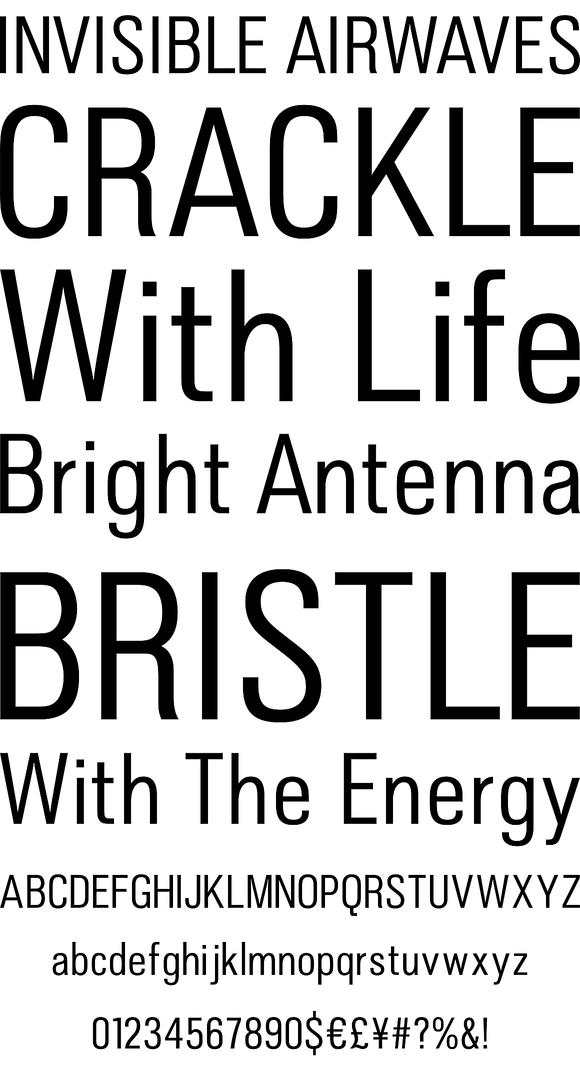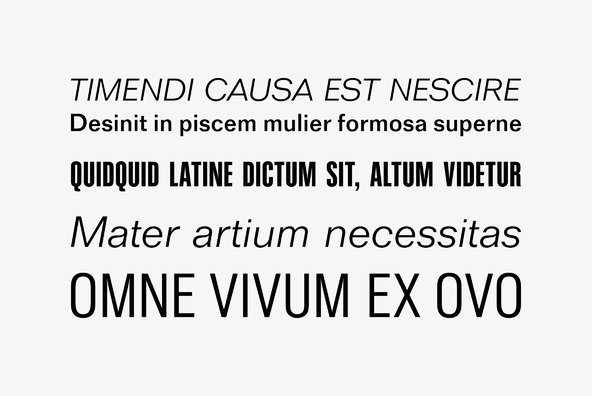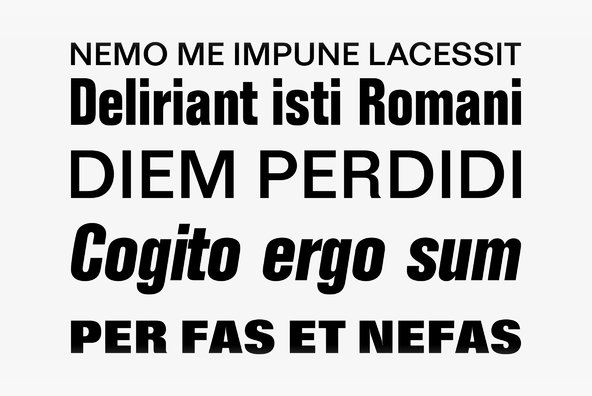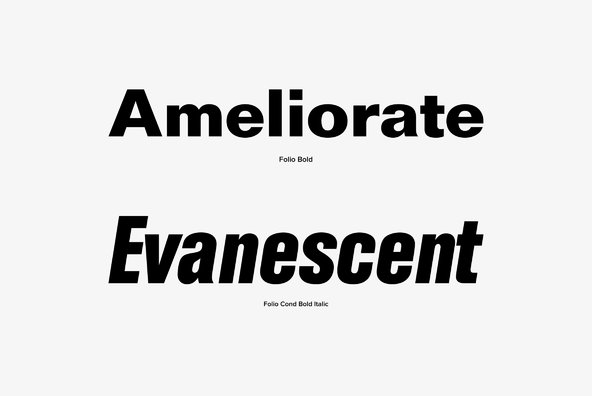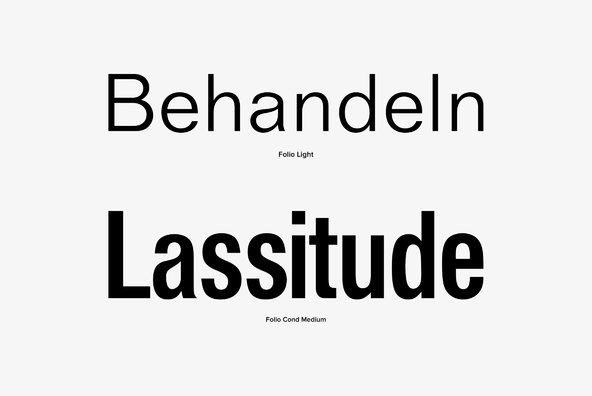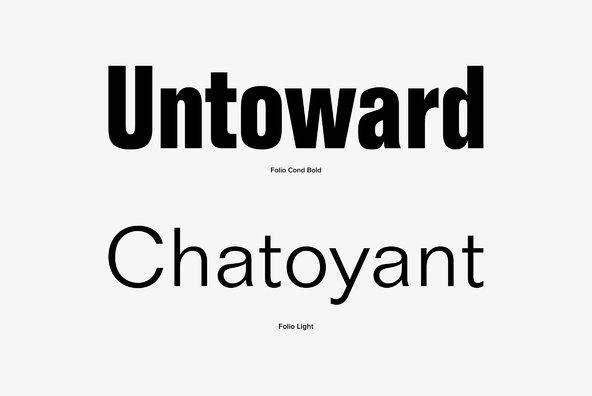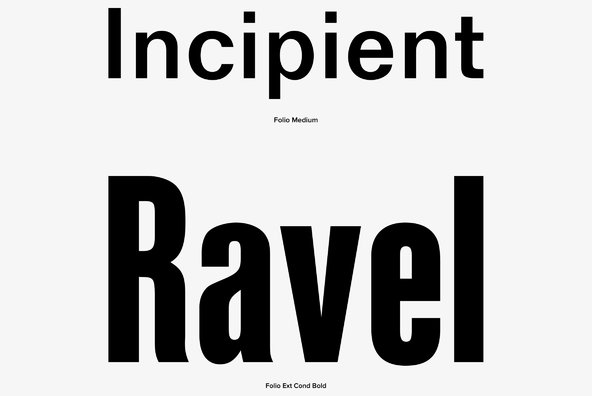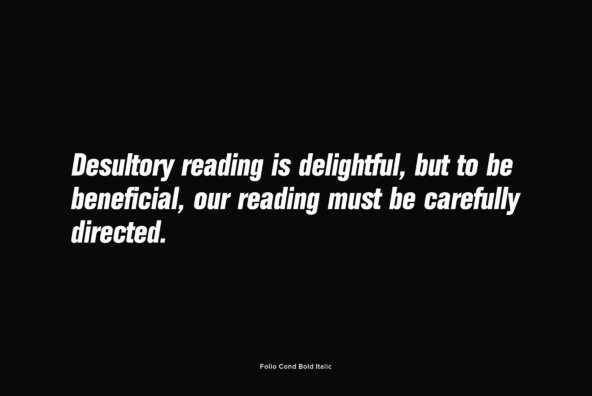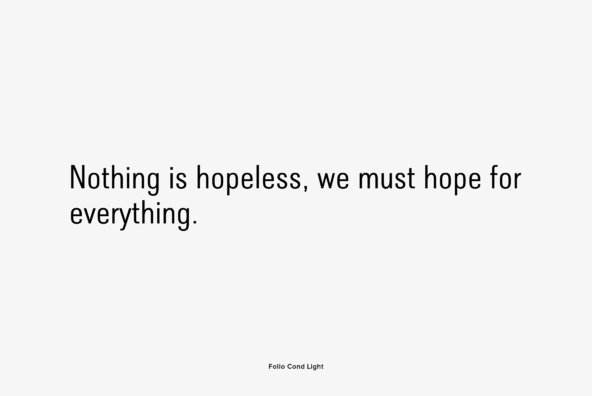
Folio is a realist sans-serif typeface designed by Konrad Bauer and Walter Baum in 1957 for the Bauer foundry. Bauer licensed the design to Fonderie Typographique Francaise for sale in France under the name Caravelle.
Like Helvetica and Univers, which were also released at the same time, it is part of the International Typographic Style and modeled after Akzidenz-Grotesk. However, Folio is more closely modeled on Akzidenz-Grotesk than the other two, which have larger x-heights. Due to good marketing, the typeface experienced moderate success in the United States. The typeface family was extended in 1963, adding an Extra Bold weight and a Bold Condensed width.
Some distinguishing features of the typeface are the capital Q's tail is centered under the figure, the uppercase J has a slight hook, and there are two versions of uppercase R, one with a straight tail and one with a curved tail.